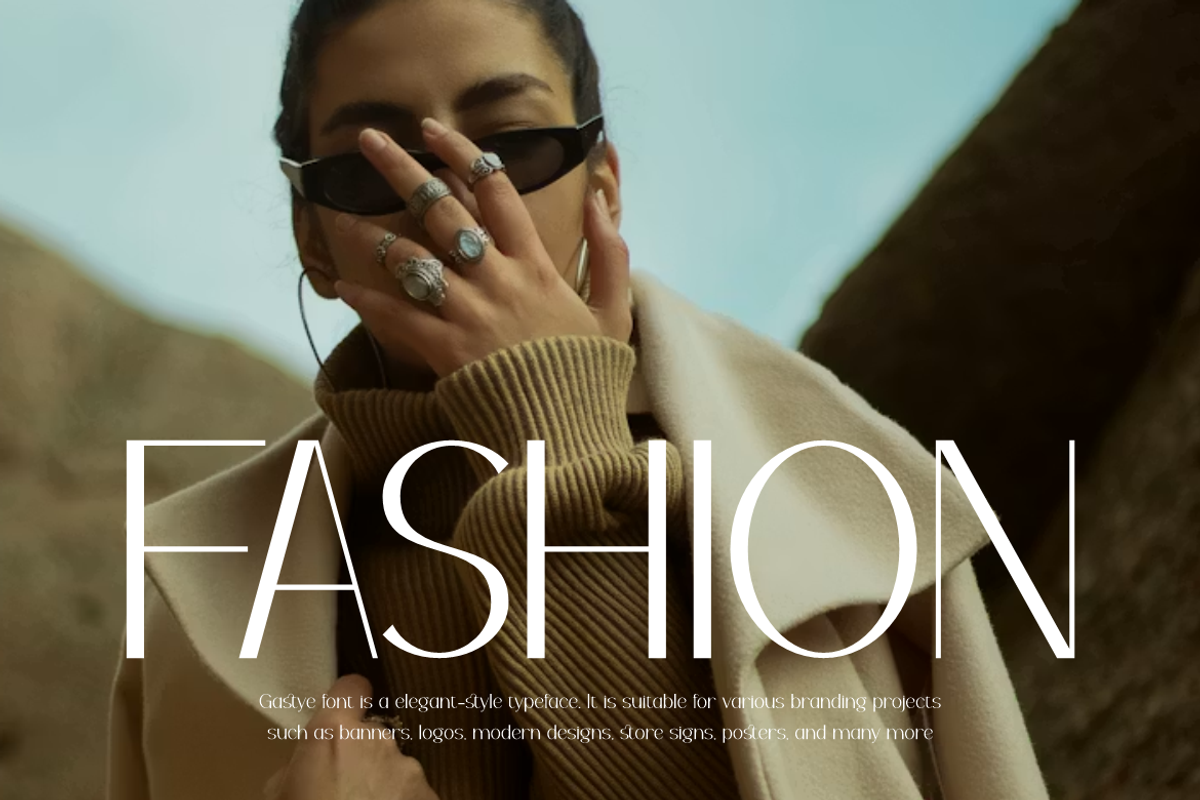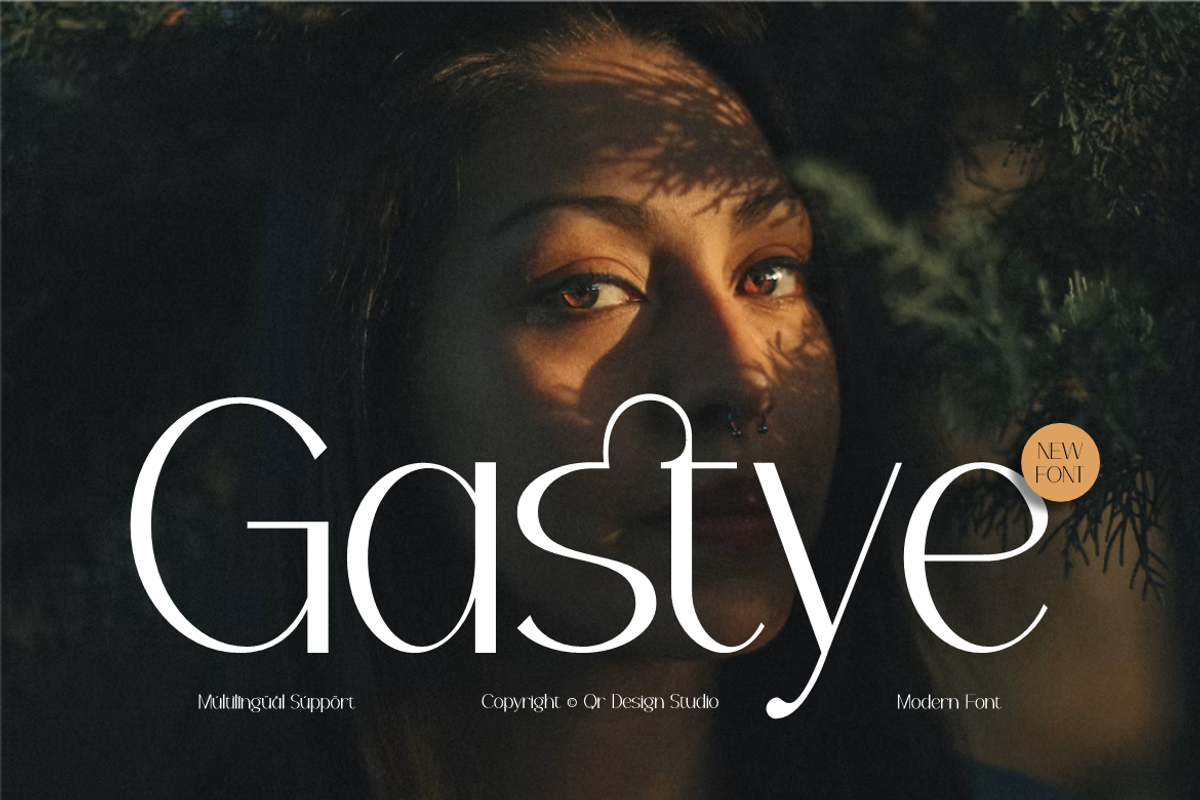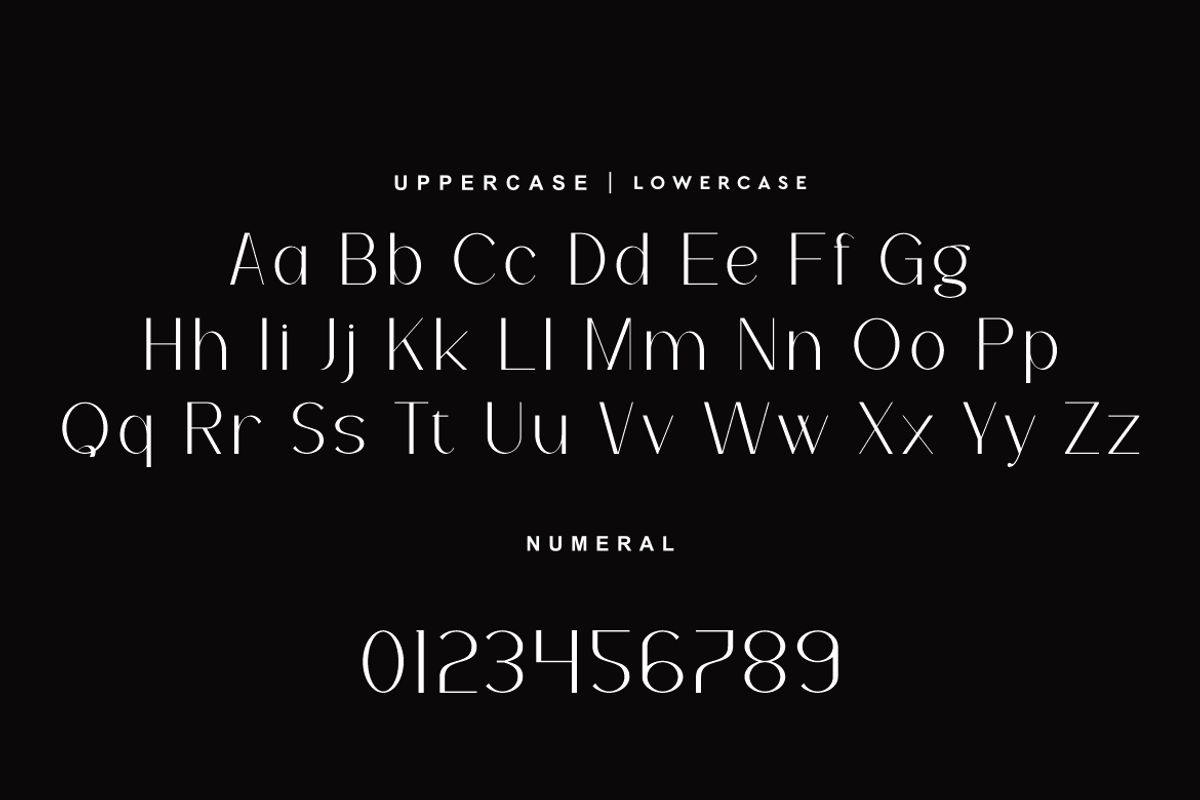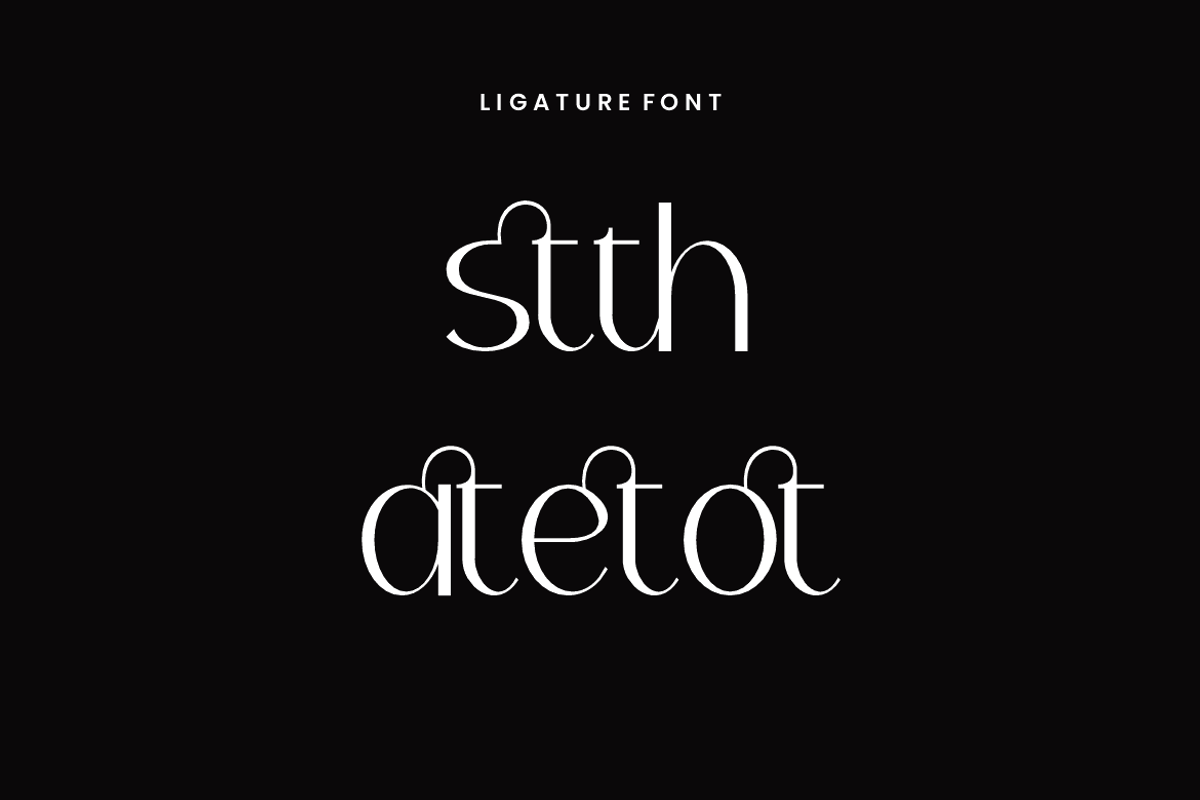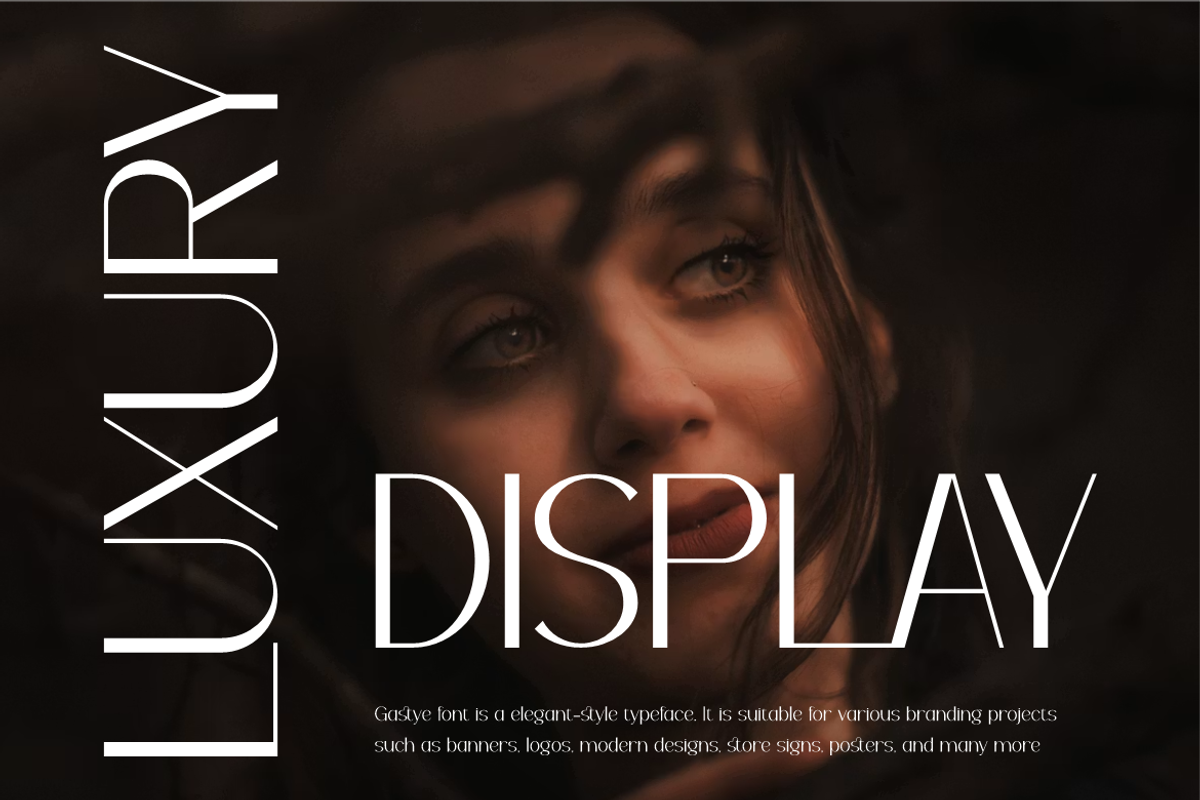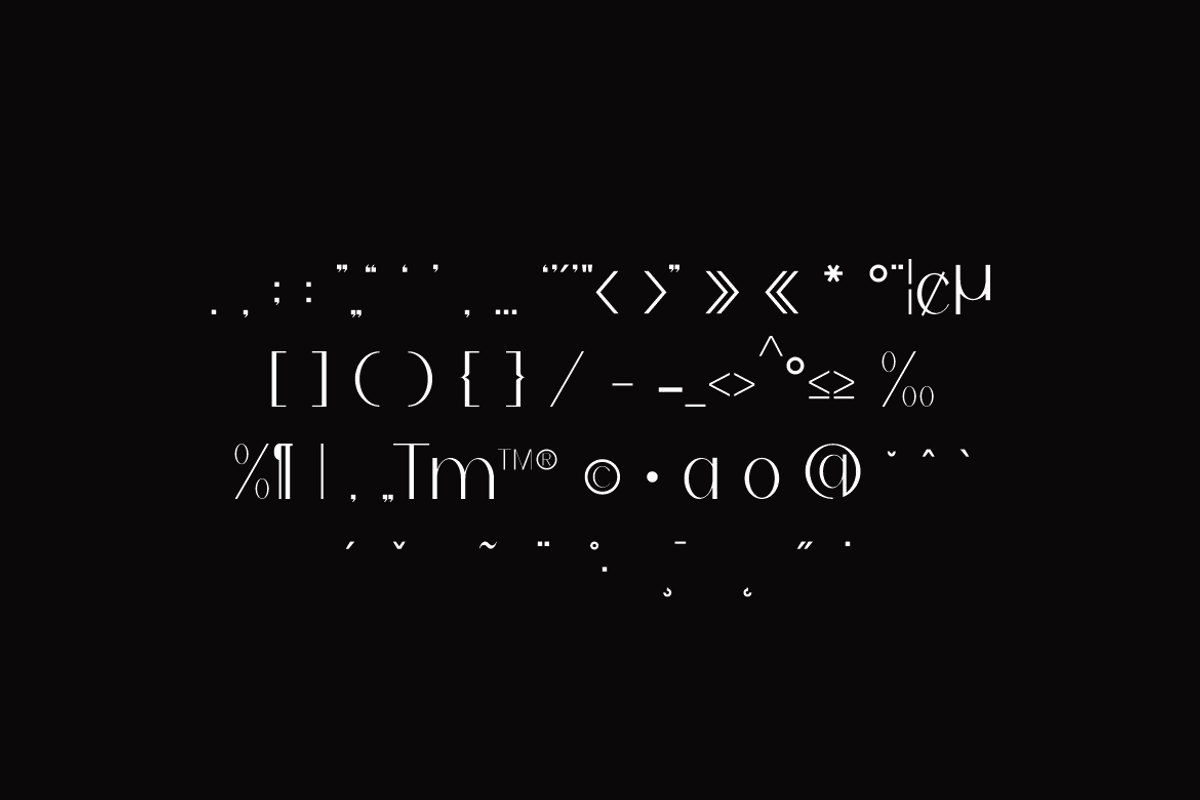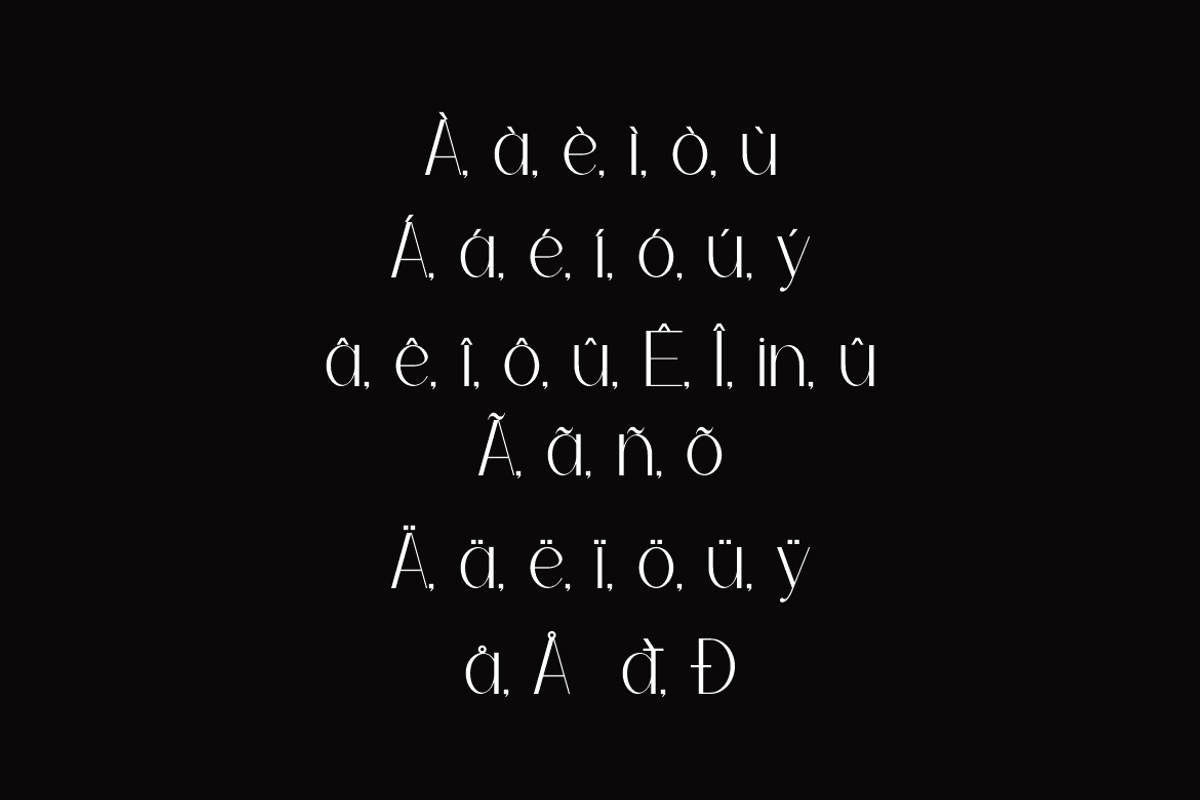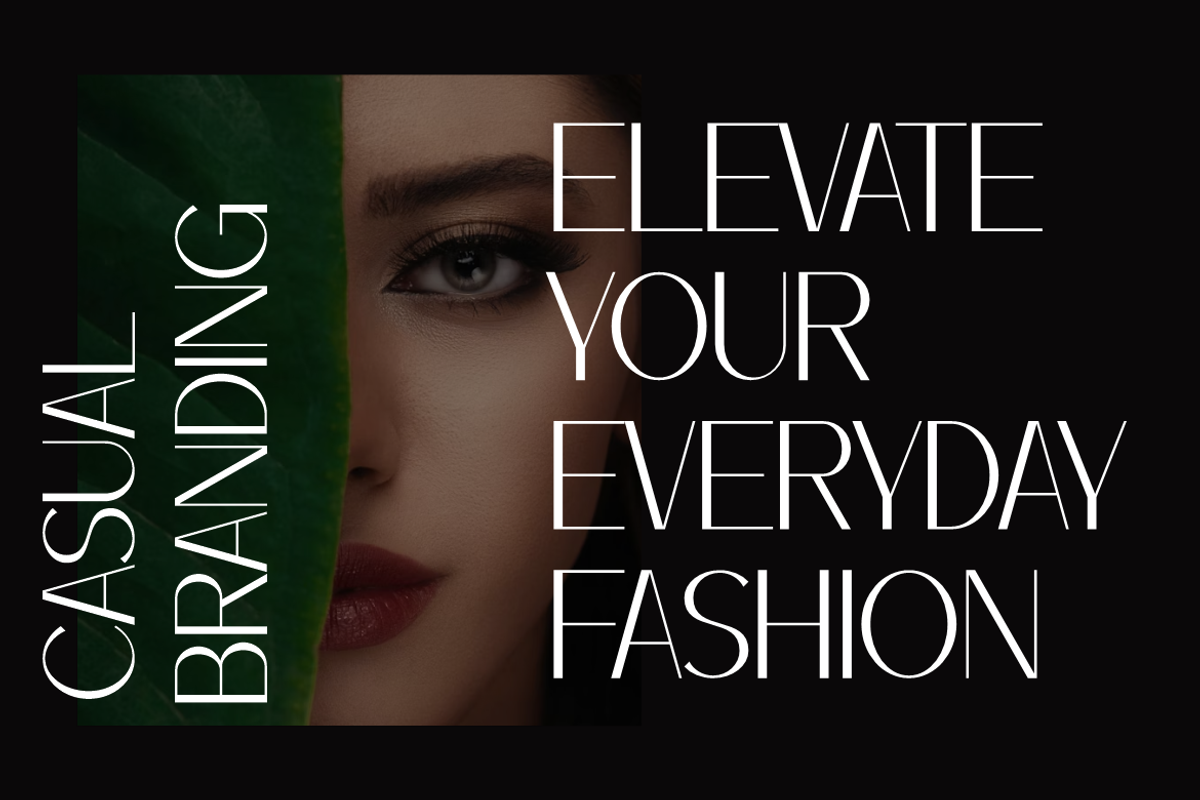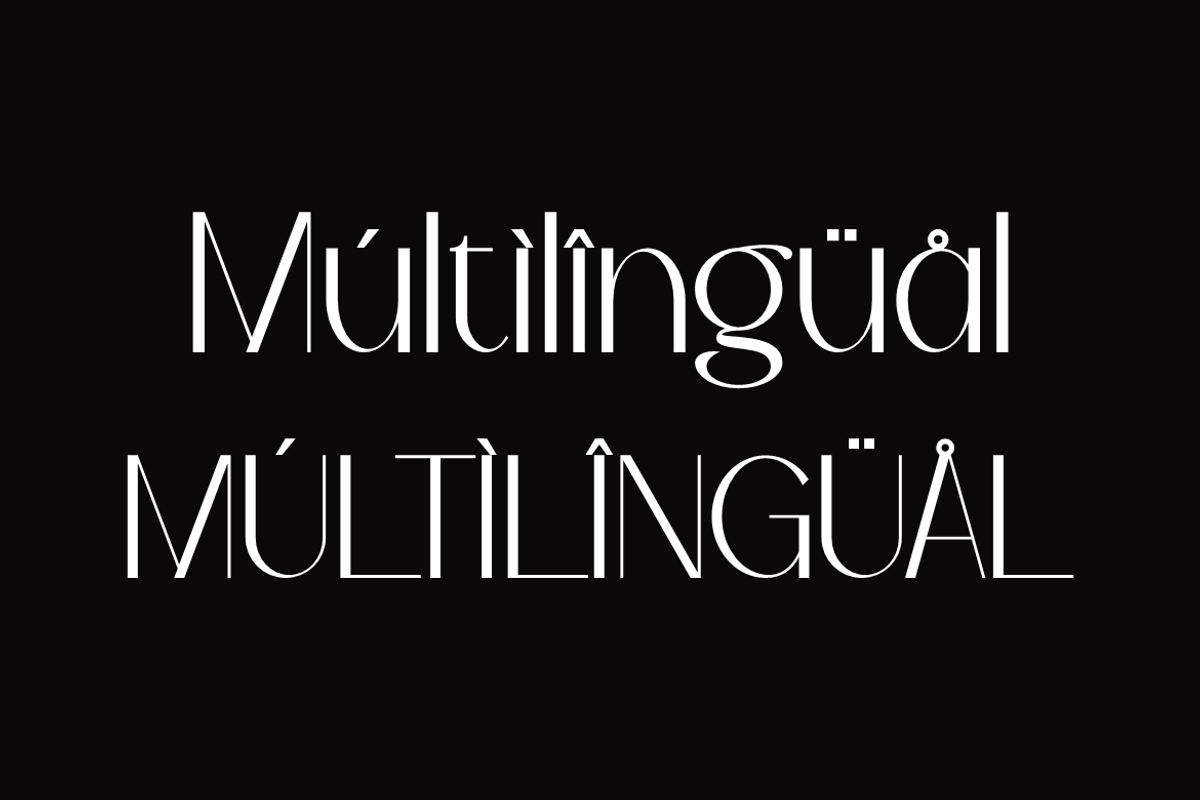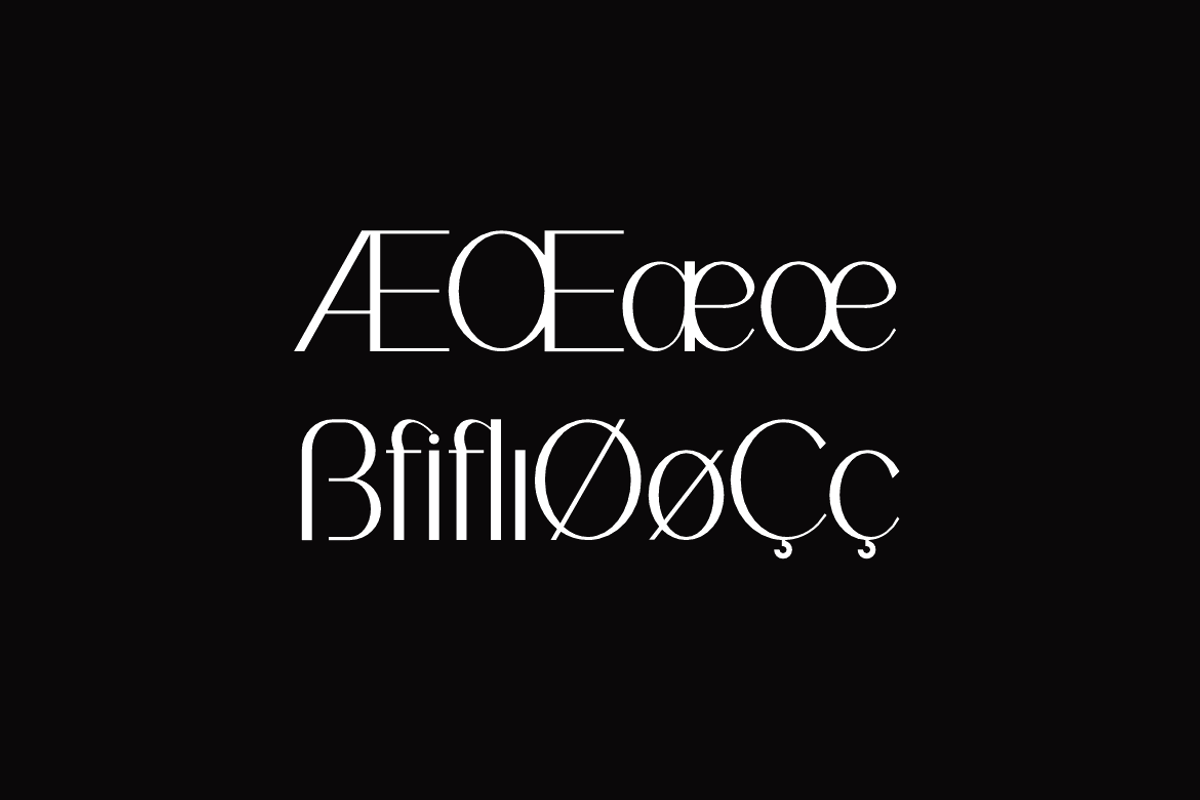
Gastye - Modern Aesthetic Font
Gastye Font is a modern and authentic display typeface.
It’s perfect for various branding projects such as logos, modern designs,
and more. This font stands out beautifully in a wide range of contexts.